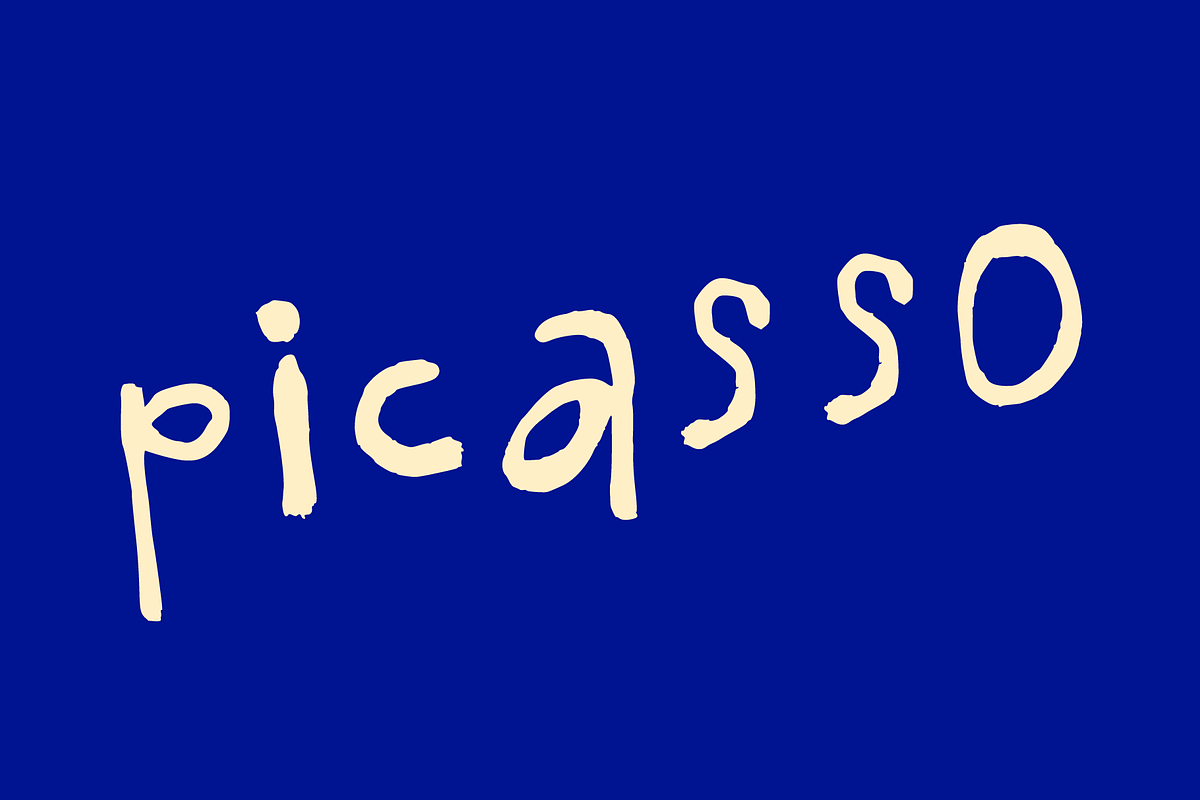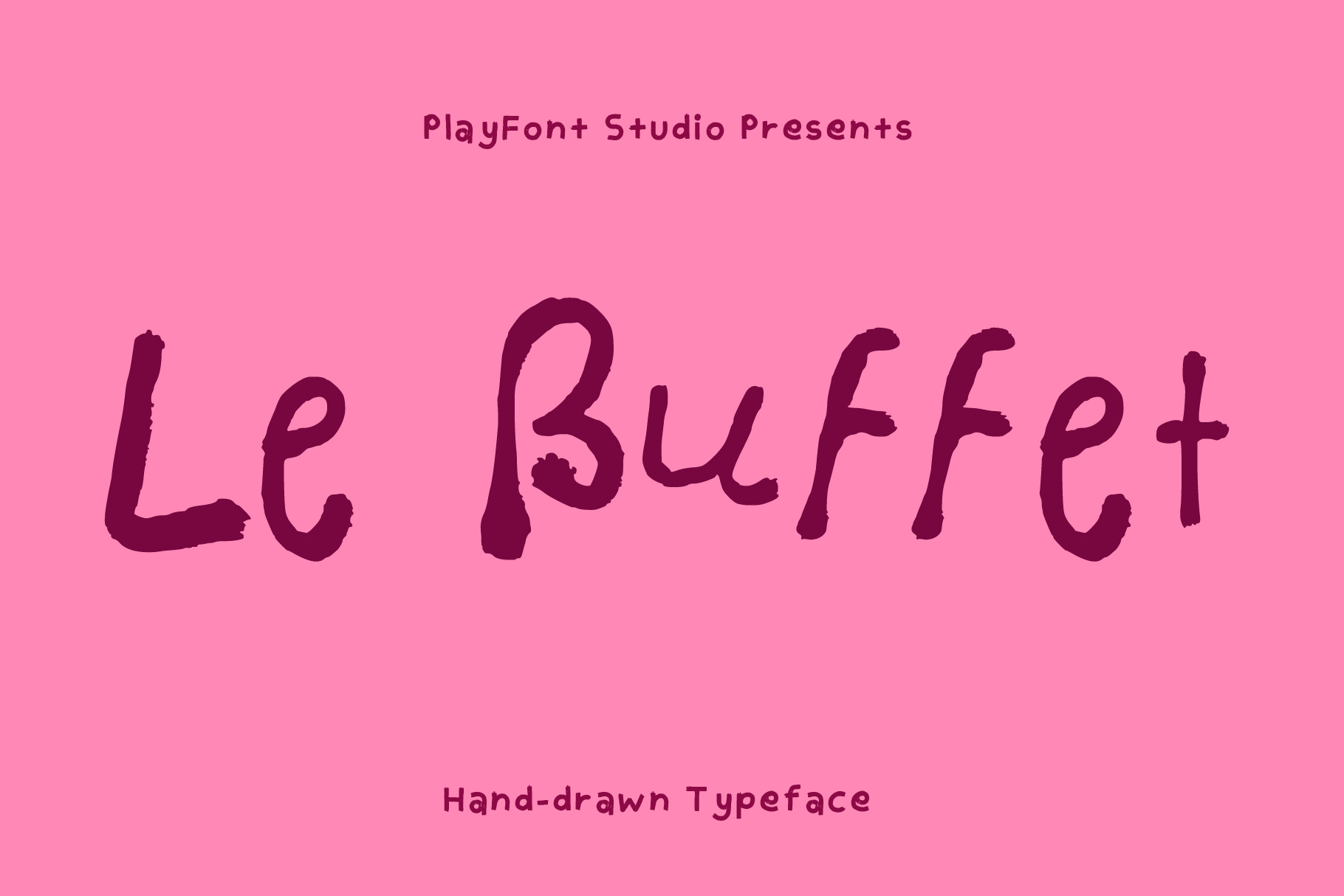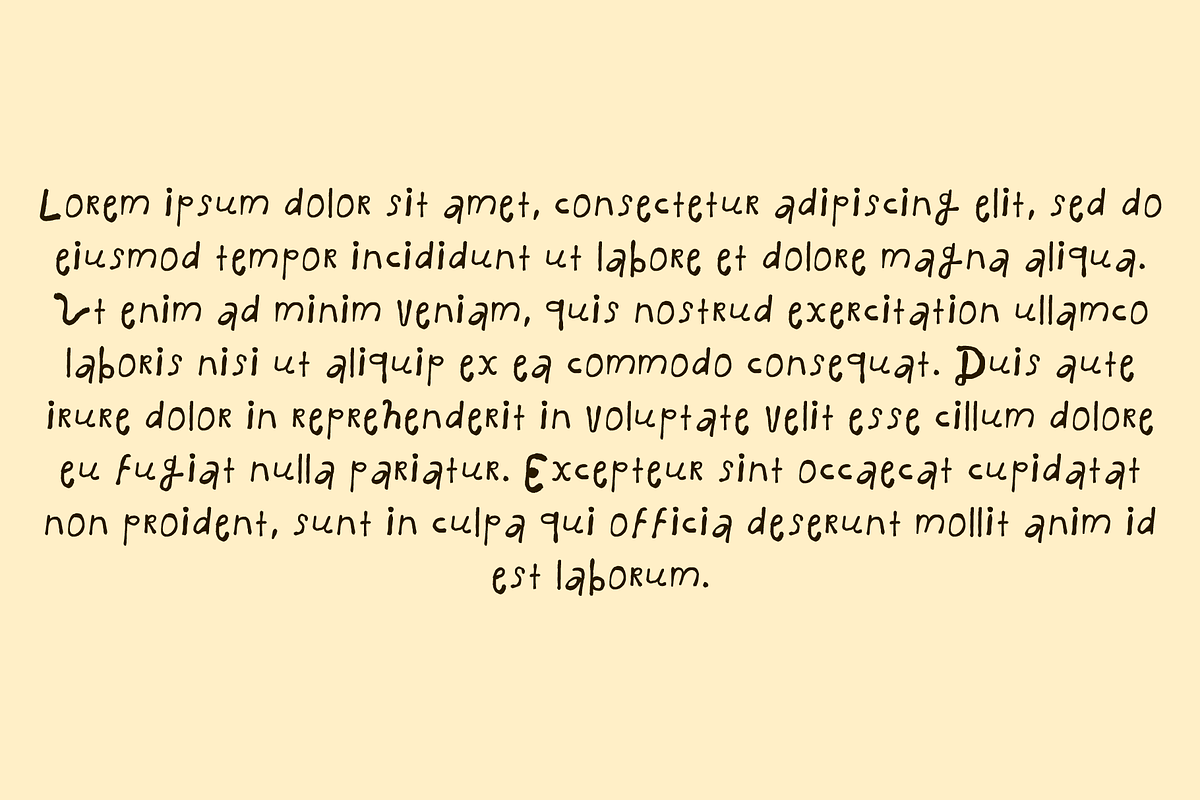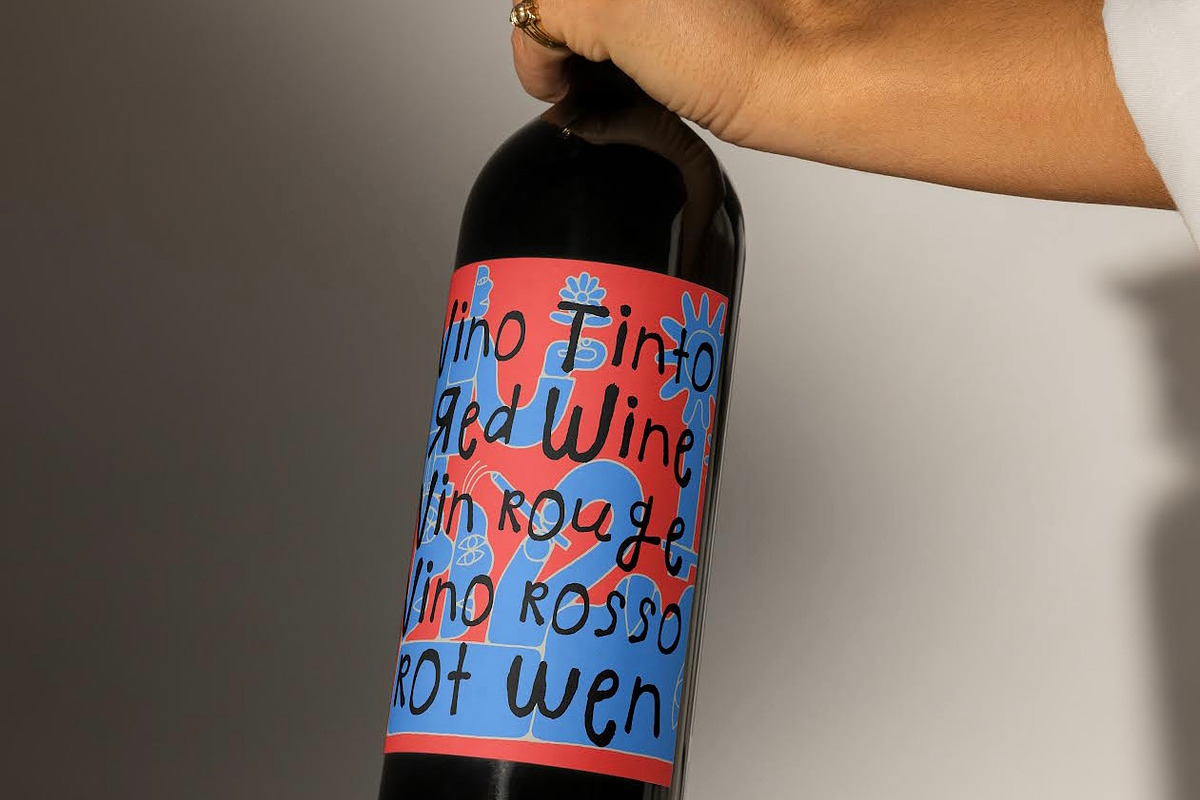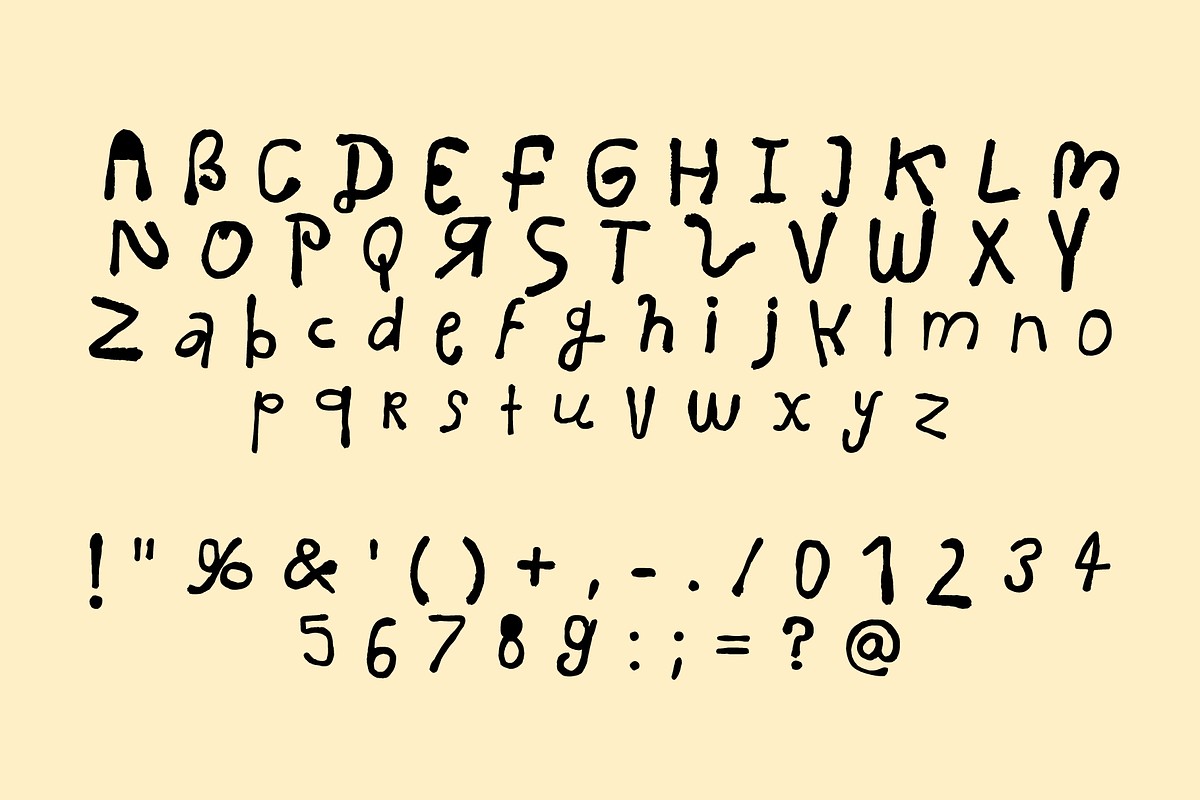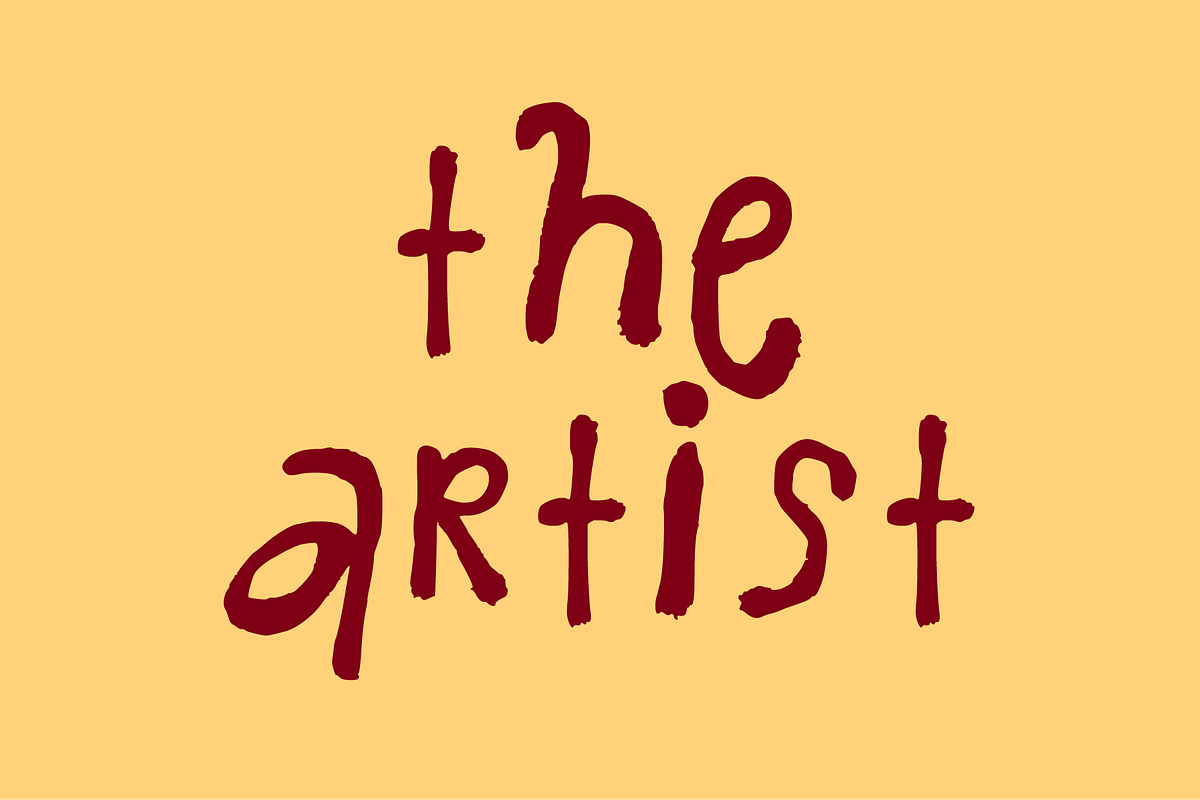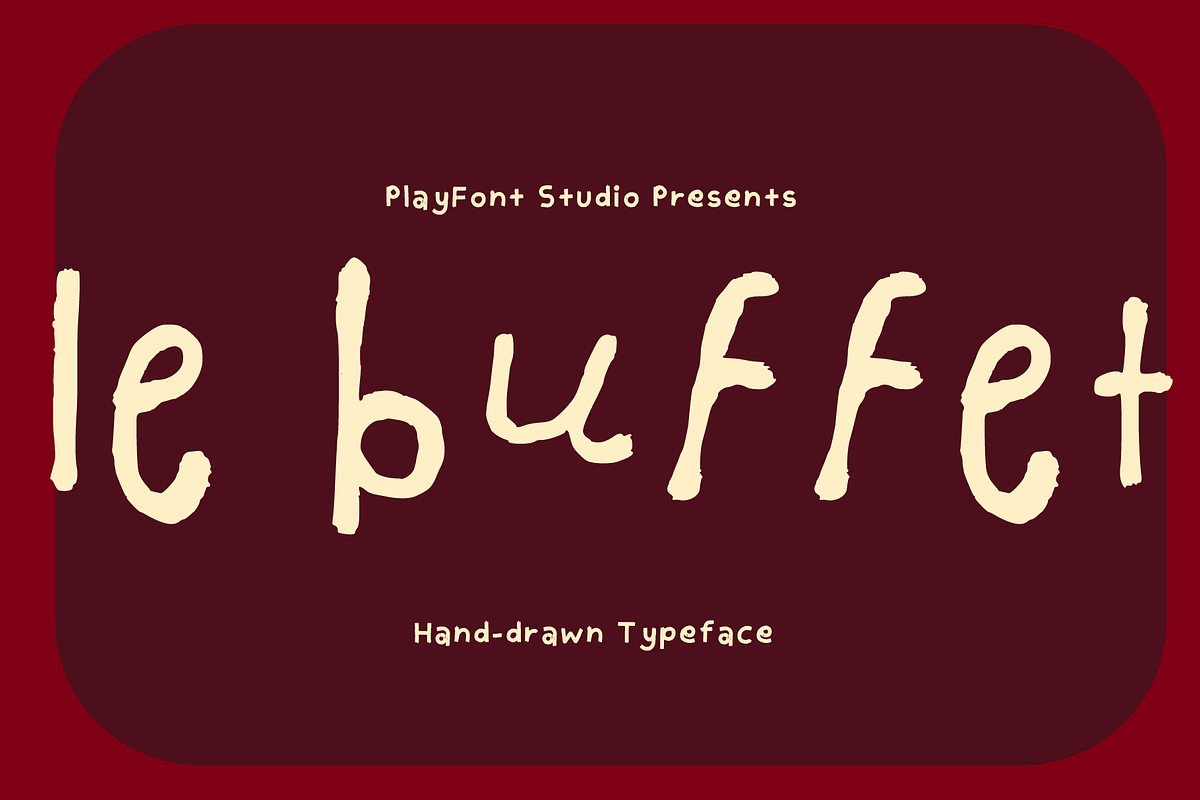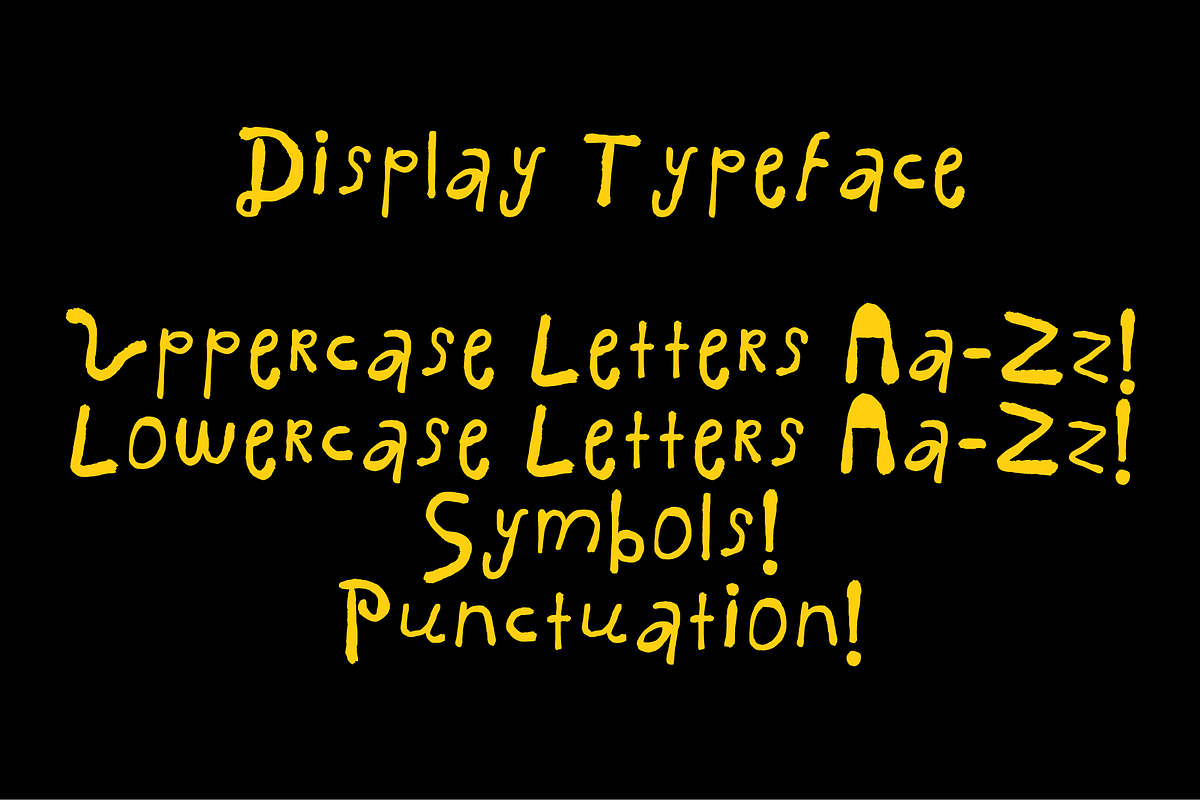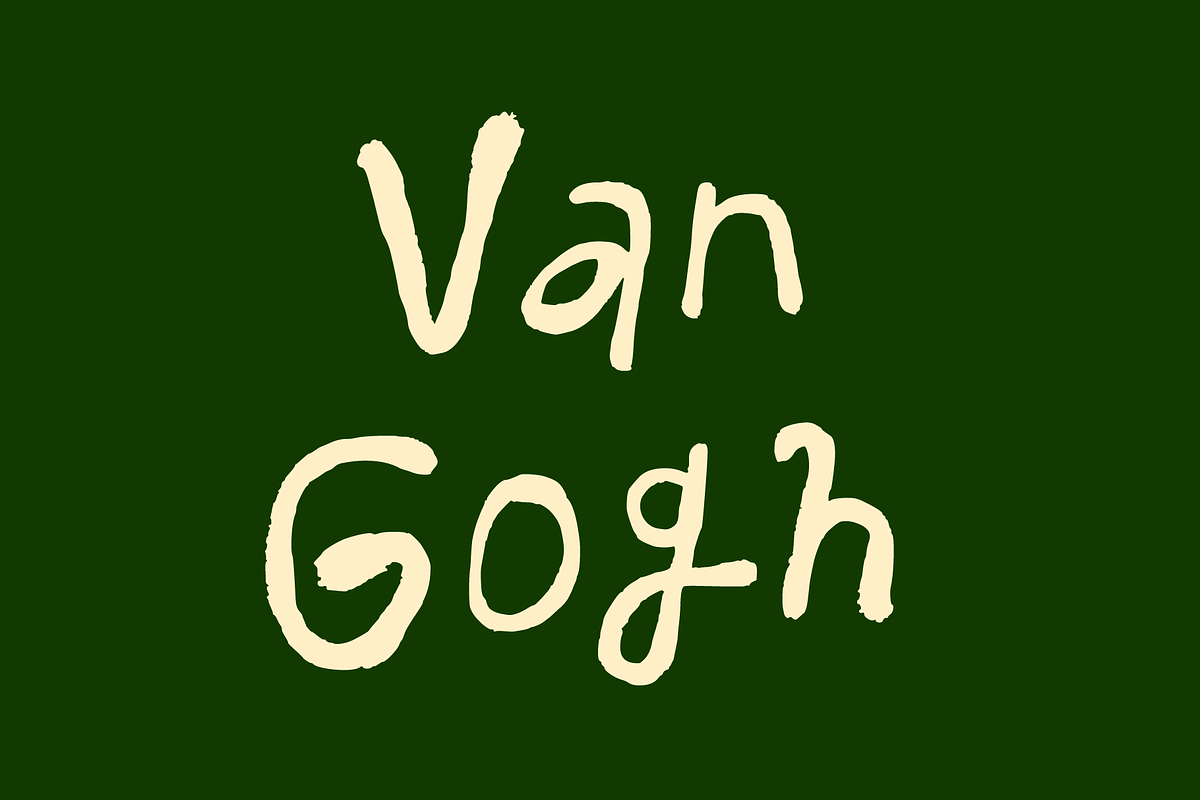
Le Buffet - A Hand-drawn Typeface
Ooh la la! Introducing Le Buffet, a font that is inspired by old artist’s signatures from Picasso to Van Gogh. A fun and playful display font which can work with various types of projects from menu design to product labels. Le Buffet is a very versatile and quirky font to have in your collection.
What's in the font? Uppercase Letters A-Z! Lowercase Letters a-z! Numbers! Symbols! Punctuation! (See slides)